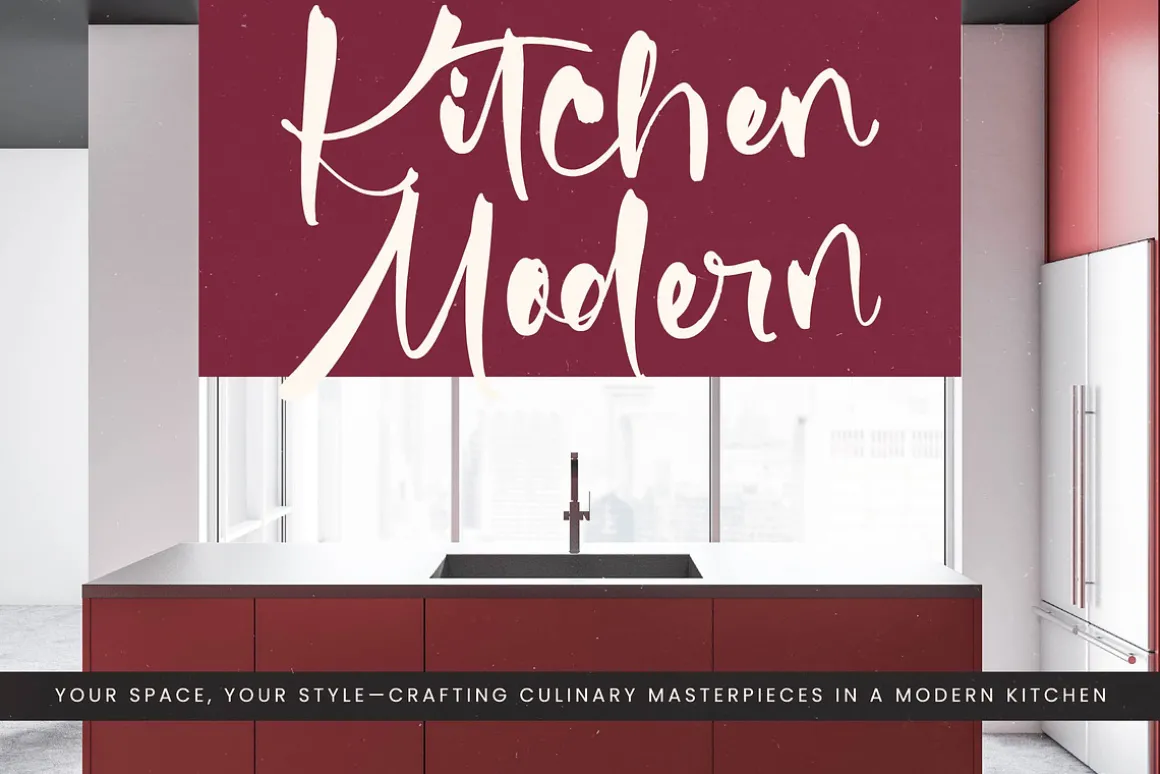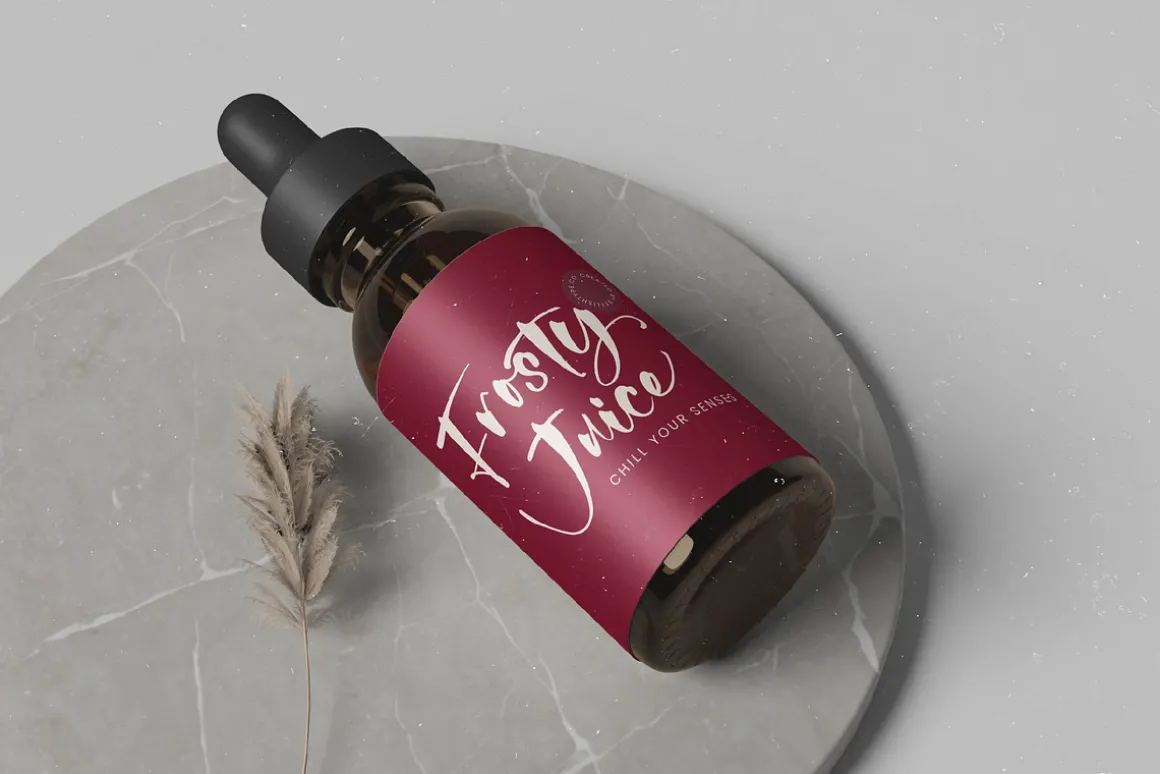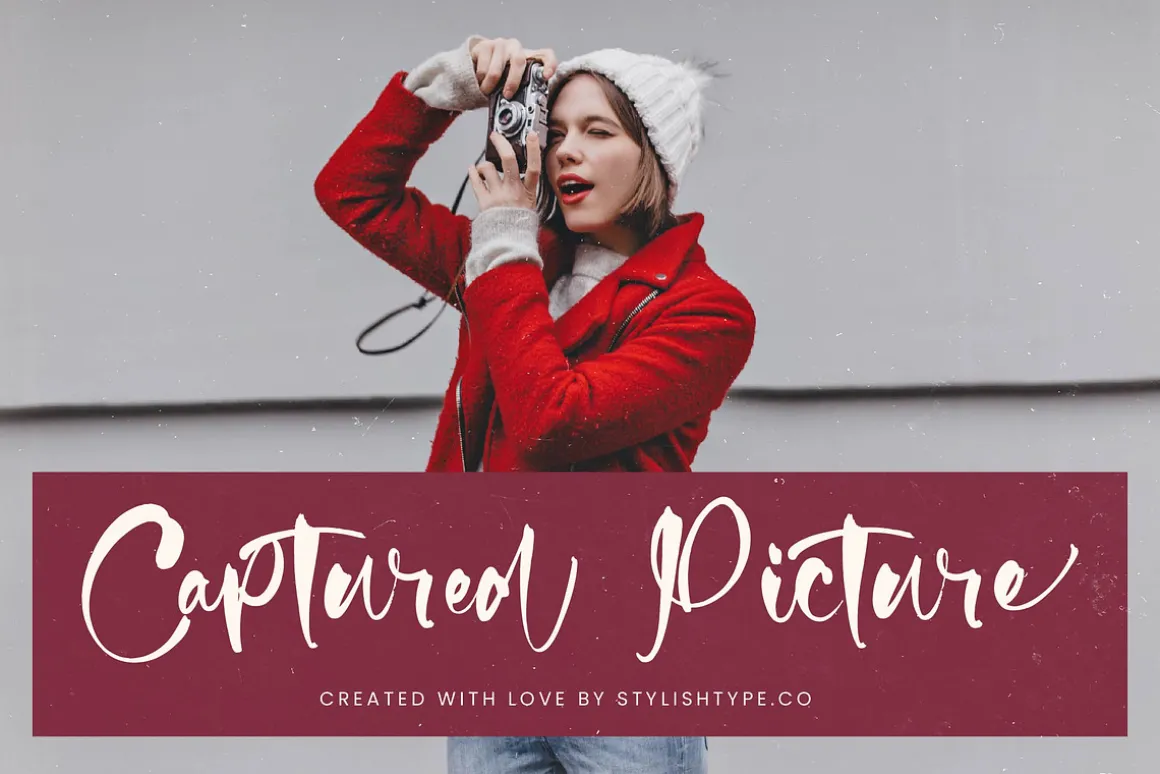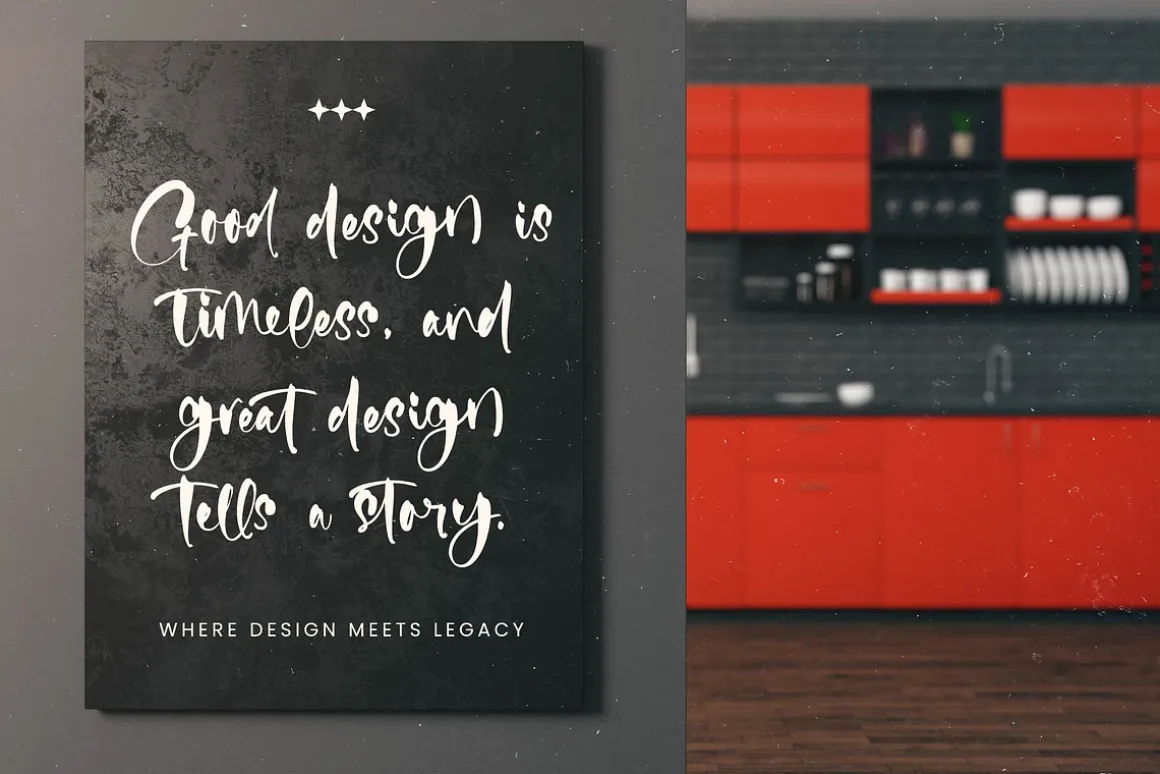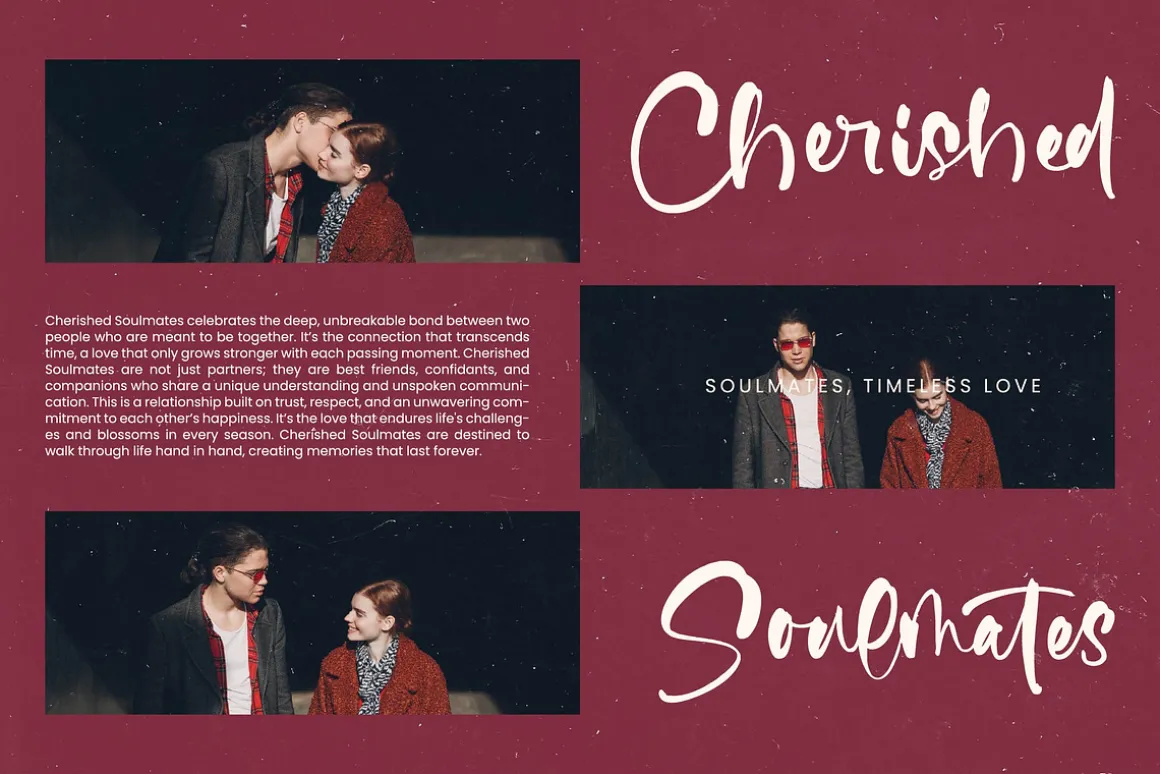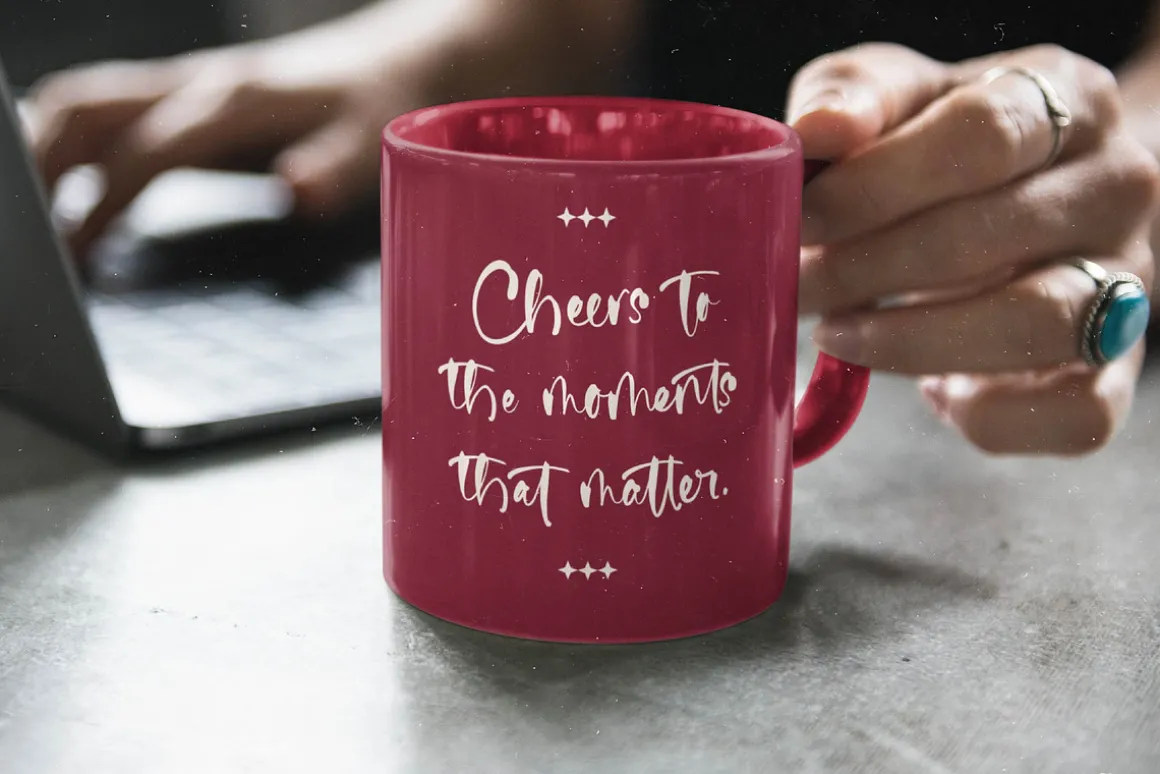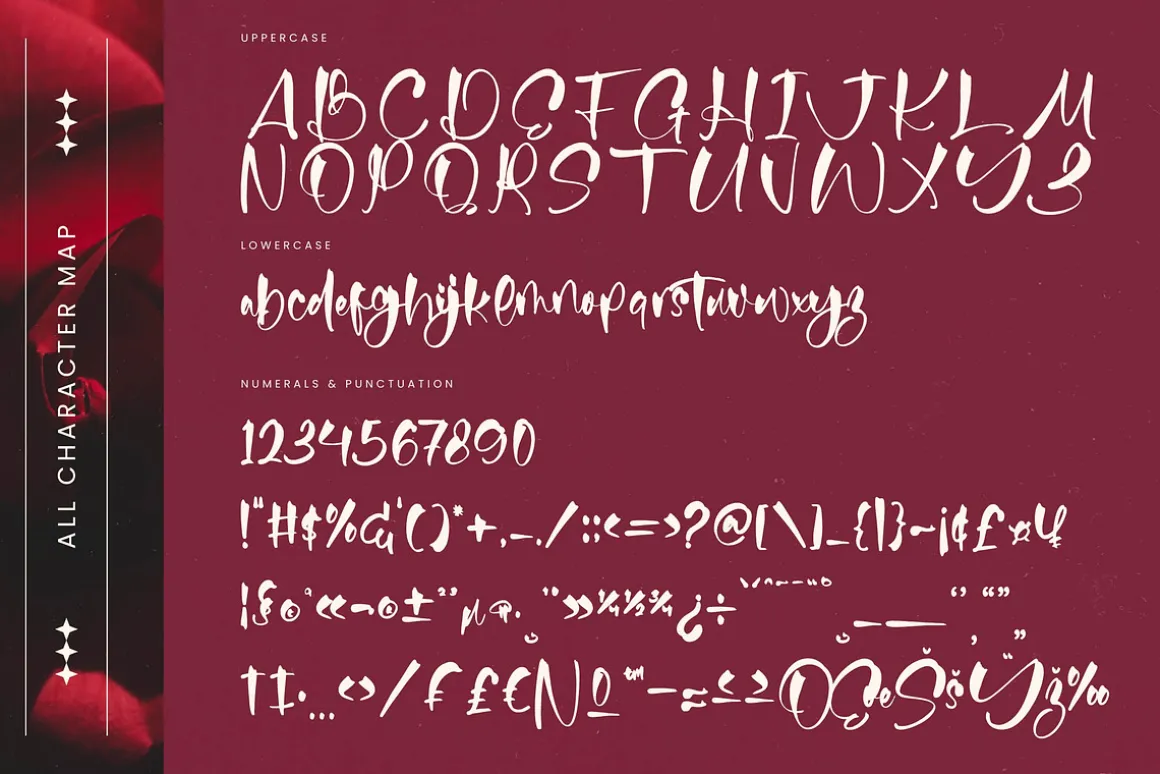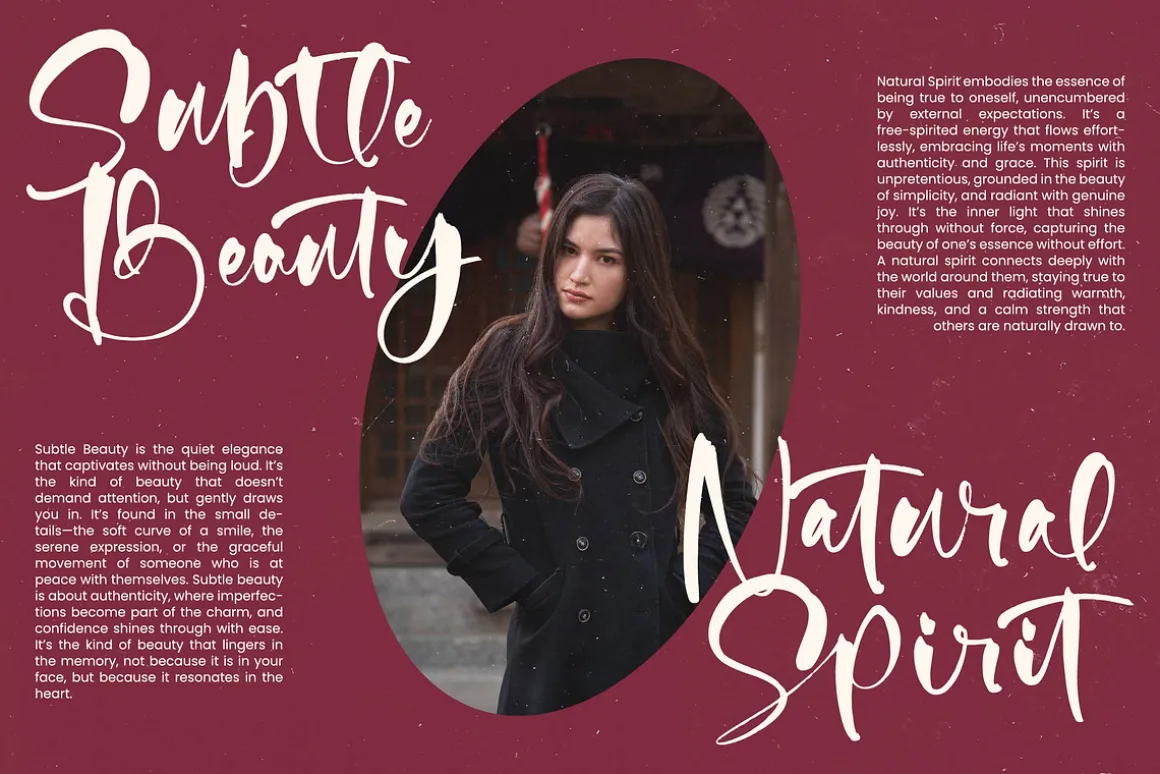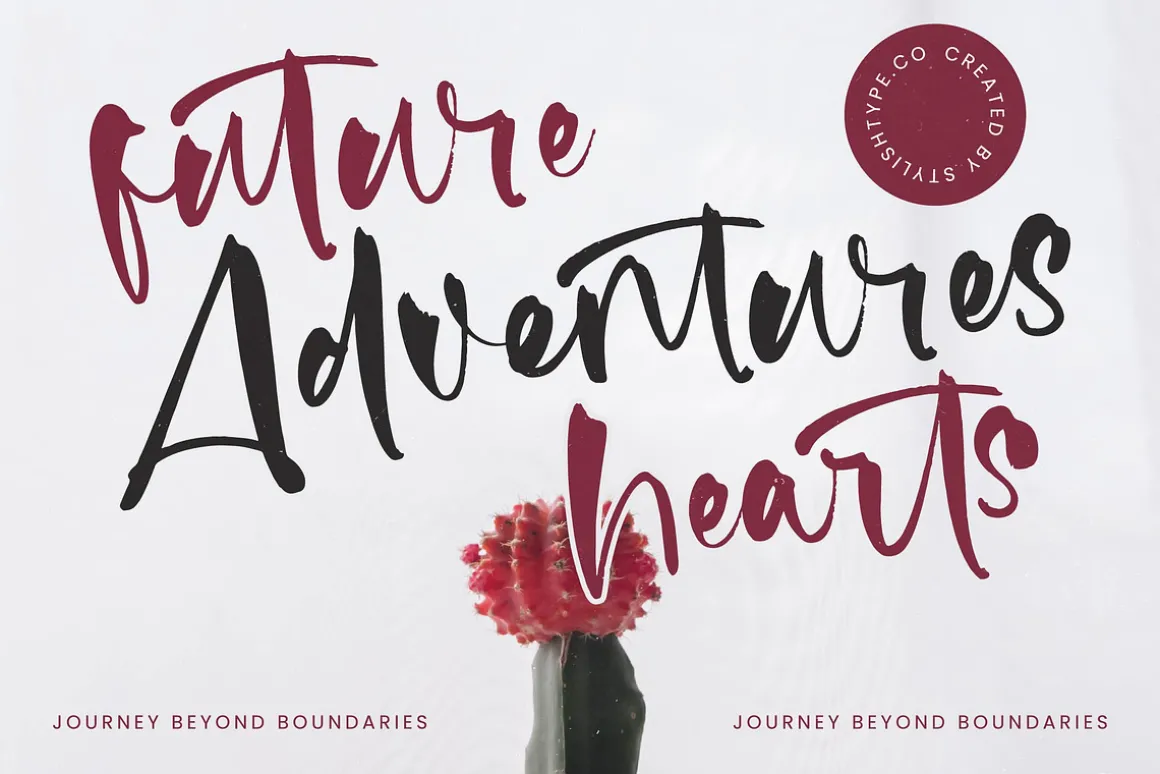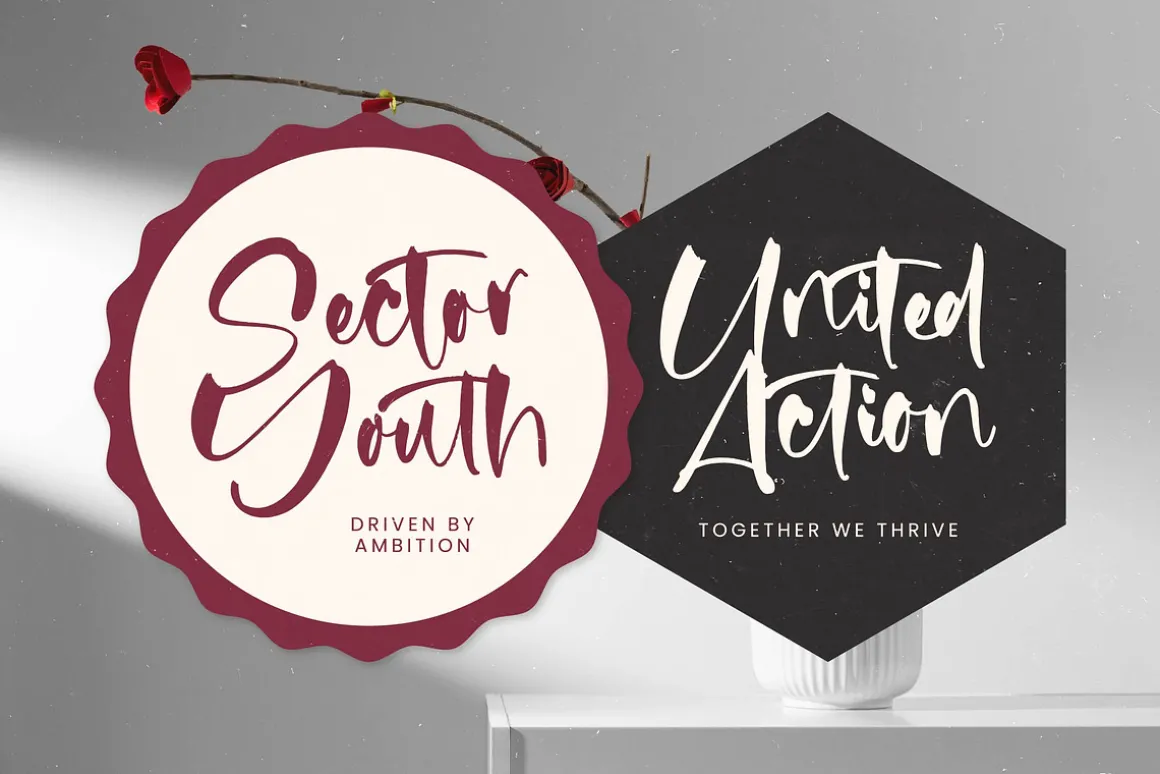
Fainter – Bold Brush Font, from Stylishtype.Co , Suitable for any projects such as: logos, branding projects, homeware designs, product packaging, mugs, quotes, posters, shopping bags, t-shirts, book covers, name card, invitation cards, greeting cards, label, photography, watermark, special events, and all your other luxury and beautiful projects that need a Luxury Script taste.
- 220 Ligature 60 Alternates & Swashes
- Numerals
- Punctuations (OpenType Standard)
- Accents (Multilingual Characters)
- Ligatures and Alternative Style Stylistic Set